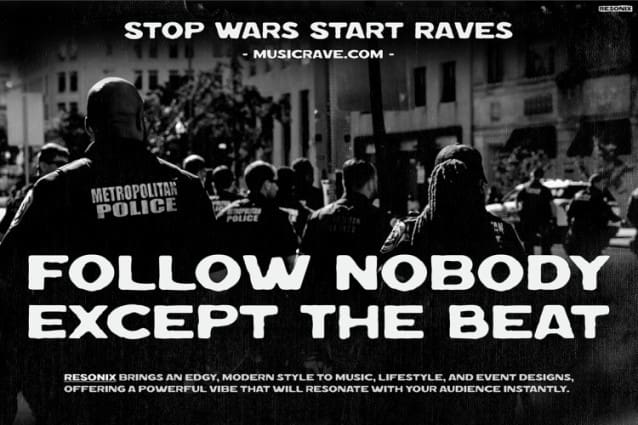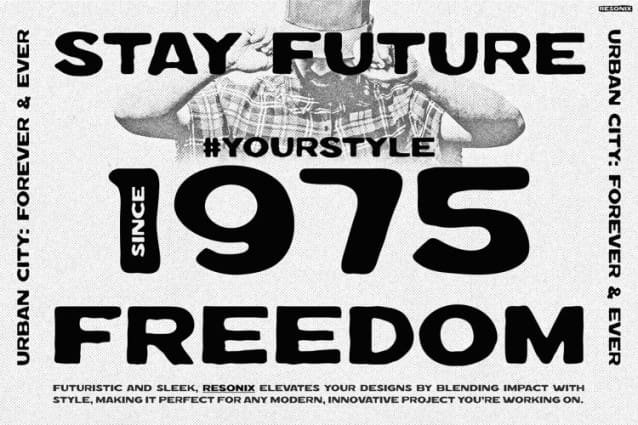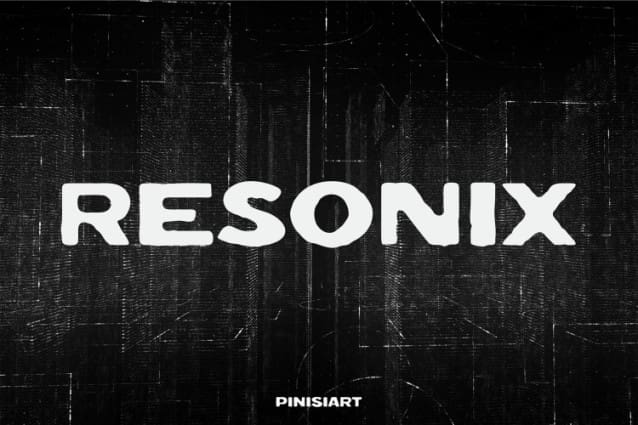
Resonix Display Font
Resonix Display Font is a bold, energetic typeface that truly captures rhythm and sound. Its unique, slightly distorted letterforms and strong presence reflect the raw energy of live music, underground scenes, and modern audio aesthetics. Moreover, inspired by electronic beats and rock typography, Resonix is more than a typeface—it’s an experience.
This font adds an edgy, impactful look to any project. In addition, its thick, rugged strokes and organic imperfections help designs stand out with a rebellious feel. Whether in digital or print media, Resonix Display Font consistently delivers a powerful impact. Every letter resonates with the intensity of music, ensuring maximum engagement.
Furthermore, the font balances readability with a distinctive character, making it memorable. It works well for display purposes like album covers, event posters, and promotional materials. Additionally, raw textures and well-balanced spacing enhance its versatility. As a result, Resonix Display Font fits many music-related branding and creative projects effortlessly.